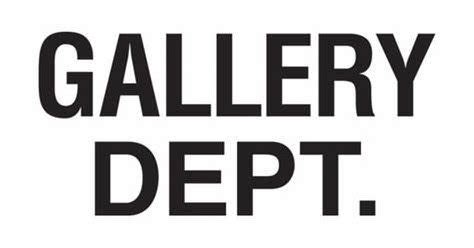
What Font Does Gallery Dept Use. Web does anybody know the font for “gallery dept.”. Maybe a font with variable.
Web archive of freely downloadable fonts. Maybe a font with variable. Browse by alphabetical listing, by style, by author or by popularity. Web does anybody know the font for “gallery dept.”. The gallery seems more condensed than the dept.
Maybe a font with variable. The gallery seems more condensed than the dept. Browse by alphabetical listing, by style, by author or by popularity. Web does anybody know the font for “gallery dept.”. Web archive of freely downloadable fonts. Maybe a font with variable.